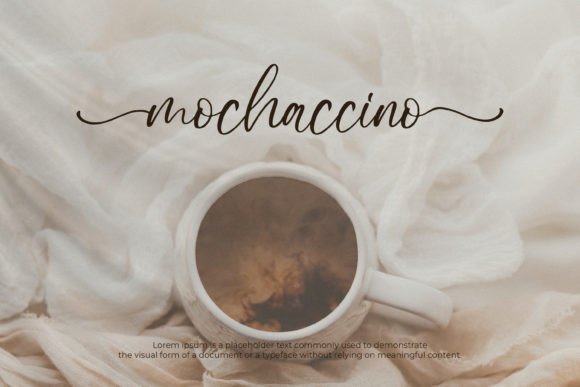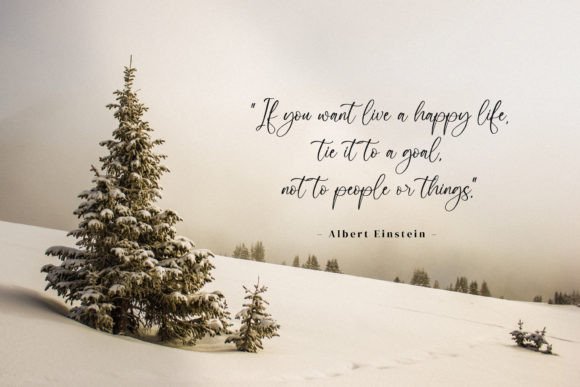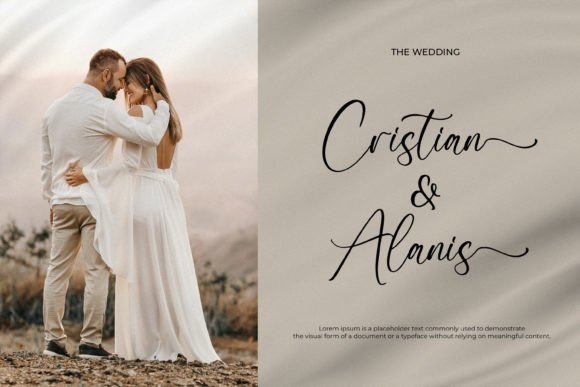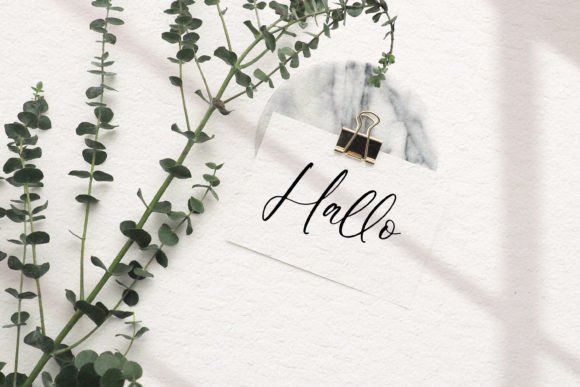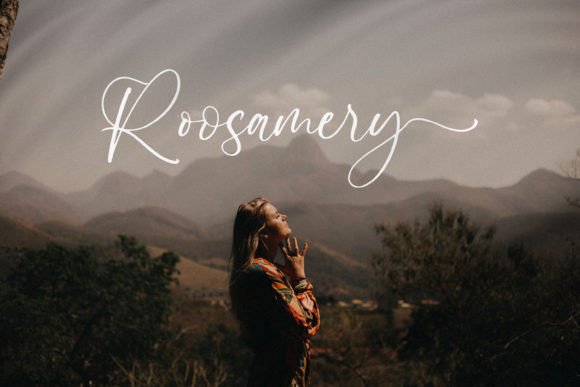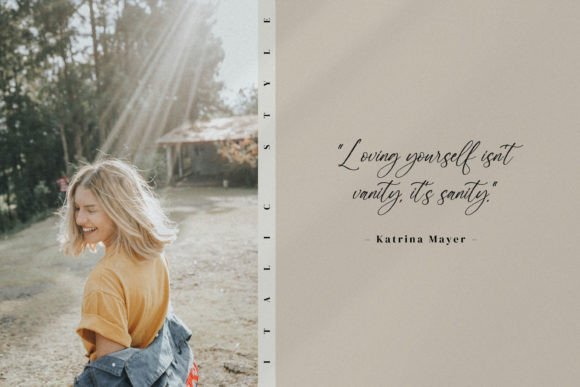
Unleash Creativity with Chimaera Font: A Dazzling Script Font
In the world of typography, a font can make or break a design. For designers and crafters, finding the perfect font that adds a touch of elegance and sophistication to their creations can be a daunting task. However, if you’re looking for a font that can elevate your designs to the next level, look no further than Chimaera Font. This dazzling script font is a game-changer, and in this article, we’ll explore what makes it a must-have in your font library.
What is Chimaera Font?
Chimaera Font is a beautifully crafted script font that exudes elegance and refinement. With its intricate details and flowing lines, this font is perfect for adding a touch of sophistication to any design project. Whether you’re working on a branding project, a wedding invitation, or a packaging design, Chimaera Font is versatile enough to complement any theme or style.
Key Features of Chimaera Font
So, what sets Chimaera Font apart from other script fonts? Here are some of its key features:
- Highly detailed and neatly crafted: Chimaera Font is meticulously designed to ensure that every letter and stroke is perfect, making it a joy to use in any design project.
- Versatile: This font can be used for a wide range of design projects, from branding and advertising to packaging and editorial design.
- Elegant and sophisticated: Chimaera Font has a refined and luxurious feel to it, making it perfect for designs that require a touch of elegance.
- Easy to read: Despite its intricate details, Chimaera Font is surprisingly easy to read, making it perfect for body text and headings.
Why Designers and Crafters Love Chimaera Font
Designers and crafters are always on the lookout for fonts that can help them create stunning designs. Here are some reasons why Chimaera Font has become a favorite among creative professionals:
- Unique and distinctive: Chimaera Font has a unique and distinctive style that sets it apart from other script fonts.
- Customizable: With its highly detailed design, Chimaera Font can be customized to fit a wide range of design styles and themes.
- Time-saving: With Chimaera Font, designers and crafters can save time and effort, as they don’t have to spend hours creating their own custom font.
How to Use Chimaera Font in Your Designs
Now that we’ve explored the features and benefits of Chimaera Font, let’s take a look at how to use it in your designs:
- Pair it with a sans-serif font: Pair Chimaera Font with a clean sans-serif font, such as Arial or Helvetica, to create a striking contrast.
- Use it for headings and titles: Chimaera Font is perfect for headings and titles, as it adds a touch of elegance and sophistication to any design.
- Experiment with colors and textures: Don’t be afraid to experiment with different colors and textures to add depth and interest to your designs.